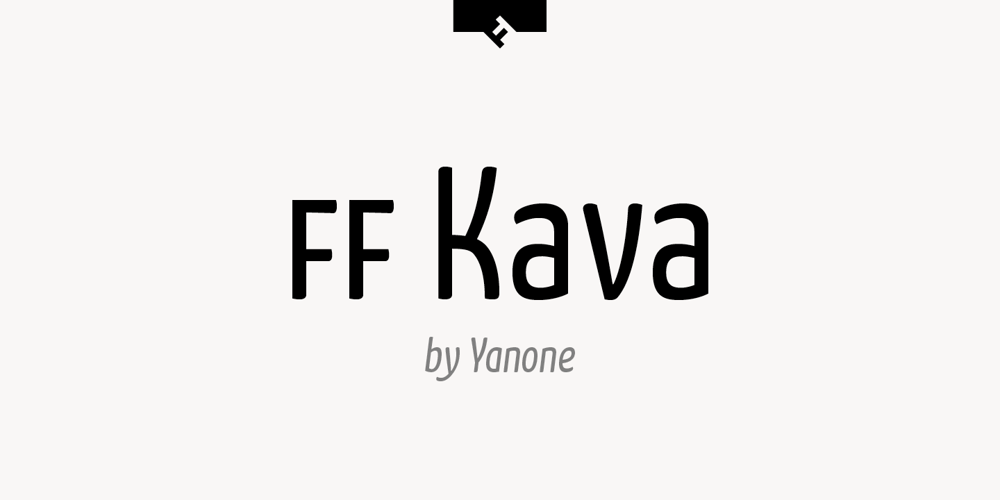
FF Kava Font Family was designed by Yanone and published by FontFont. FF Kava contains 10 styles and family package options. German type designer Yanone created this sans FontFont between 2009 and 2010. The family has 10 weights, ranging from Thin to Black (including italics) and is ideally suited for advertising and packaging, festive occasions, editorial and publishing, logo, branding and creative industries as well as poster and billboards. FF Kava provides advanced typographical support with features such as ligatures, small capitals, alternate characters, case-sensitive forms, fractions, and super- and subscript characters. It comes with a complete range of figure set options – oldstyle and lining figures, each in tabular and proportional widths.